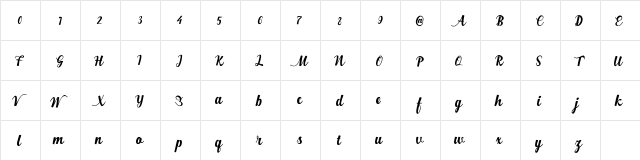
Alexander Reguler Demo Regular
Design Context for Alexander Reguler Demo Typeface
Alexander Reguler Demo is a composed and adaptable typeface that performs quietly and consistently across a wide range of design contexts.